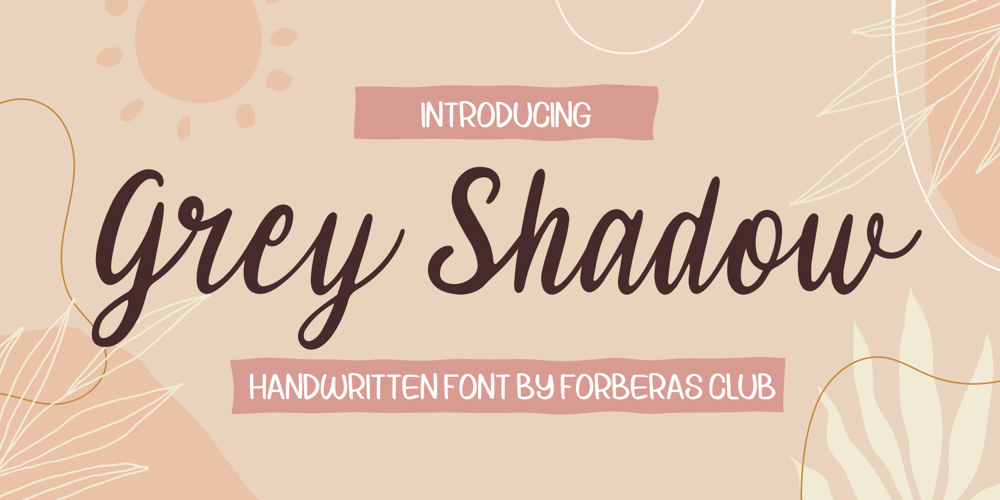
Grey Shadow Font Family was designed by ANGGI HERMAWAN and published by Forberas Club. Grey Shadow contains 1 styles and family package options. This Grey Shadow font is create font special moment like wedding party, wedding invitation, happy party, book cover and something cute moment and lovely moment.